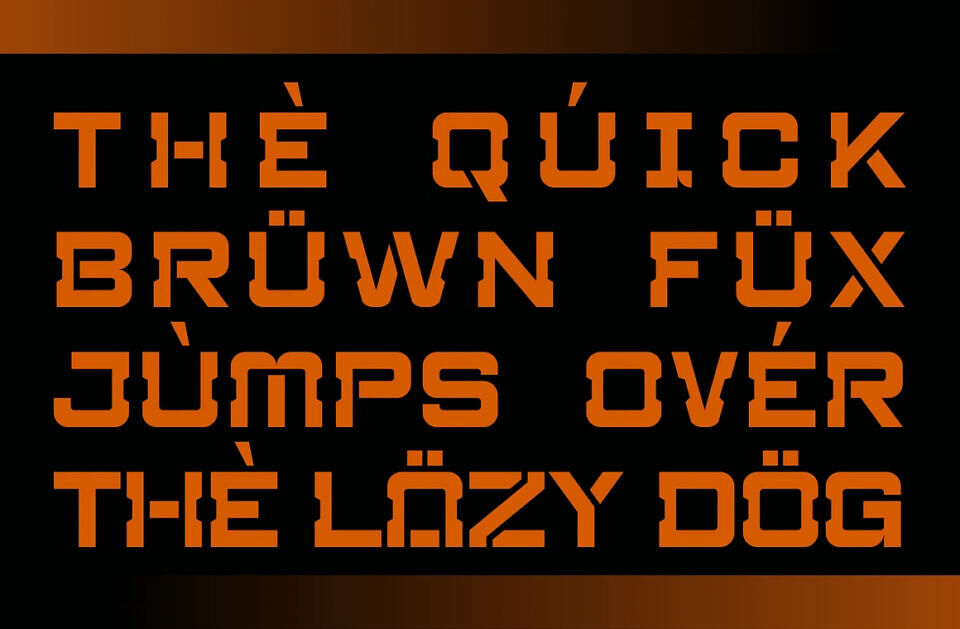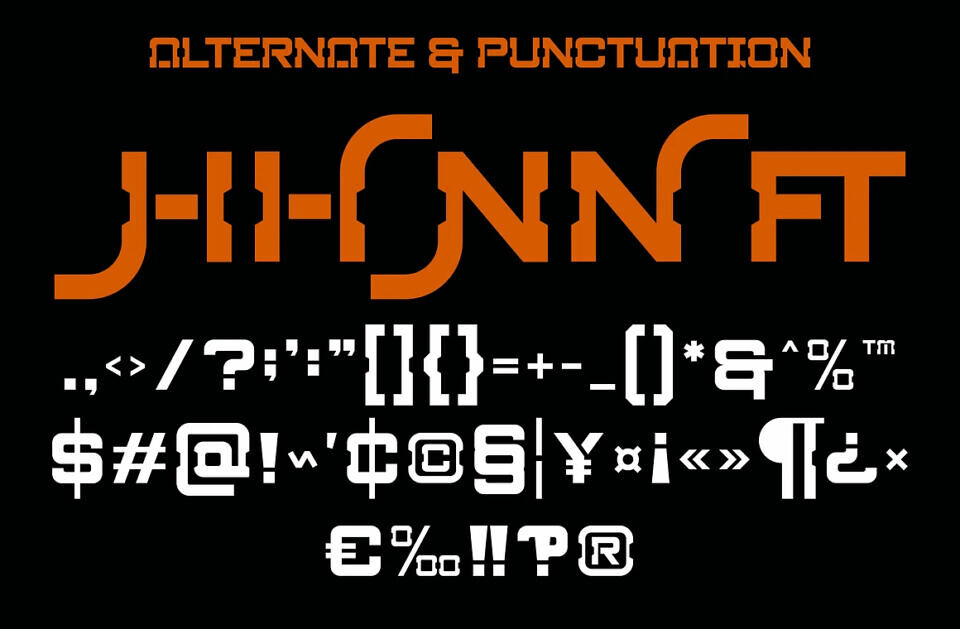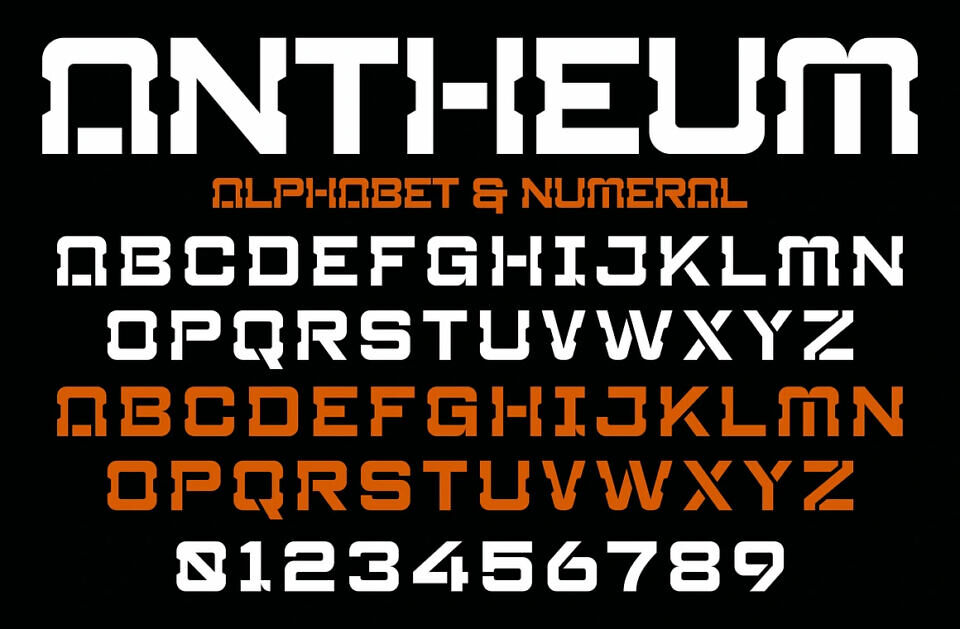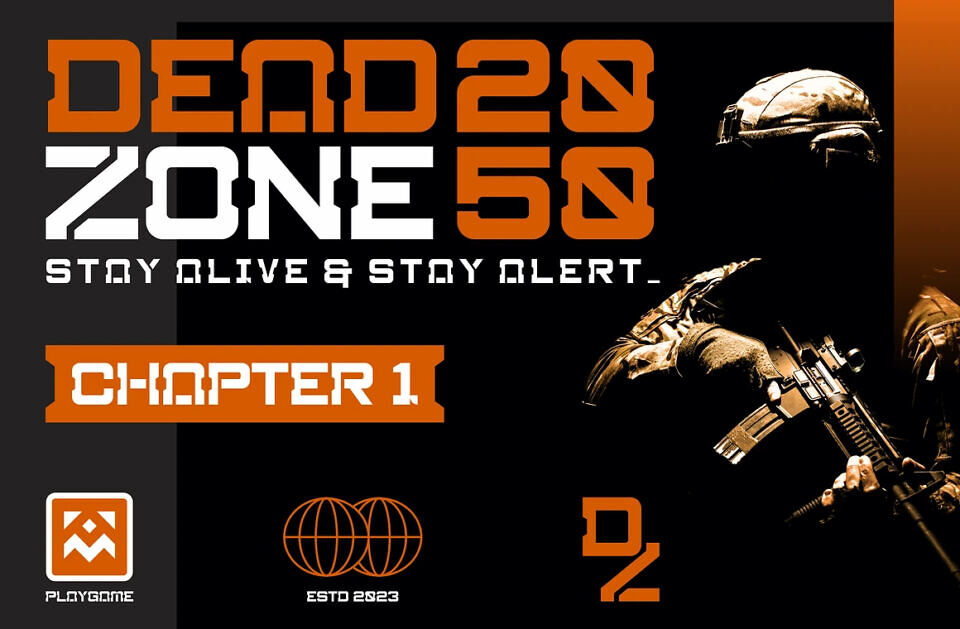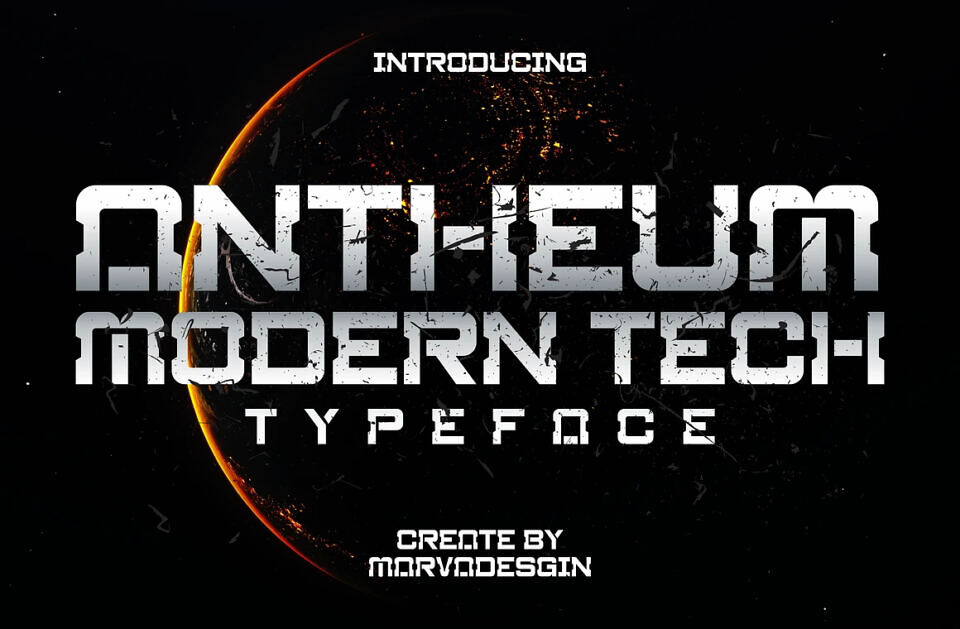
Antheum Font
Antheum Font is a cool and futuristic typeface that gives your words a modern vibe. With sleek lines and sharp edges, it’s perfect for tech-themed projects, logos, and designs that need a contemporary touch.